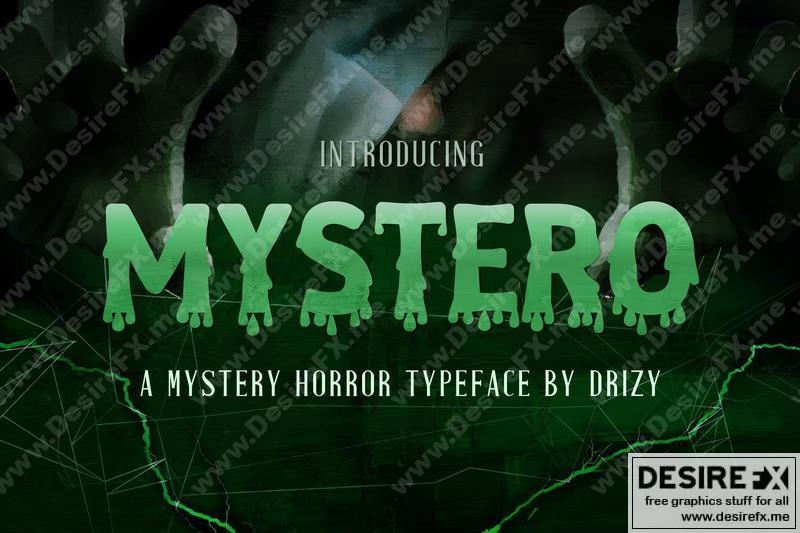
Mystero – Mystery Horror Font 4YEK2F2
Introducing Mystero! a mystery horror typeface from Drizy! It’s suitable for scary halloween theme of your project.